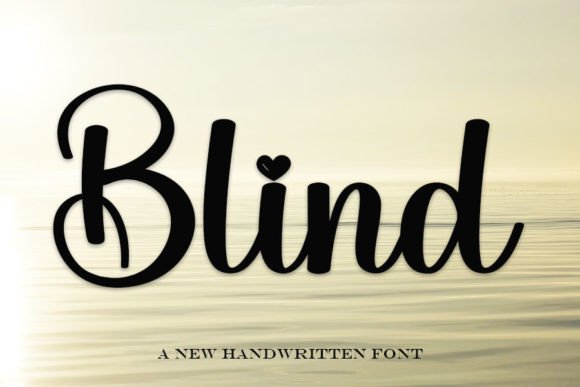
Introducing Blind Font, a script font family that will cast a spell on your designs, taking them from ordinary to extraordinary. Crafted with meticulous attention to detail and an artistic flair by the talented putrasyahreza00, Blind Font is a symphony of elegance and charm, ideal for adding a touch of sophistication to any project.
This exquisite font family exudes a timeless allure, meticulously designed to evoke a sense of wonder and enchantment. Each character flows seamlessly, resembling the graceful strokes of a calligraphy master, creating a visual masterpiece that draws the eye and captivates the heart. Blind Font's inherent beauty lies in its ability to transform ordinary words into captivating works of art.
With Blind Font at your fingertips, you can unleash your creativity and embark on a journey through a world of limitless possibilities. Whether you're a seasoned designer or just starting your creative adventure, this font family will elevate your designs to new heights. Let Blind Font guide you, inspiring you to create designs that resonate with your audience and leave a lasting impression.
Immerse yourself in the world of Blind Font and discover a treasure trove of applications. Its versatility knows no bounds, effortlessly adapting to a wide range of creative endeavors. Enchant your wedding invitations, adding a touch of romance and elegance to your special day. Design eye-catching posters that demand attention, captivating your audience with their unique charm. Let Blind Font dance across your social media posts, grabbing the attention of followers and sparking conversations.
Unleash the power of Blind Font and watch as your designs ascend to new heights, captivating your audience with their mesmerizing allure. Let this extraordinary font family be your artistic compass, guiding you towards creative triumphs and leaving an indelible mark on the world. Embrace the beauty of Blind Font, and together, weave a tapestry of visual delights that will leave hearts enchanted and imaginations ignited.